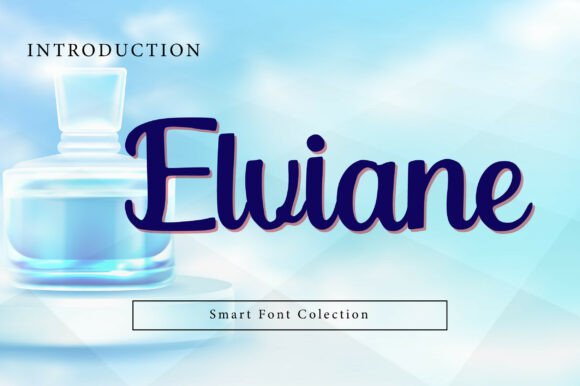
Introducing Elviane Font: The Modern Handwritten Script Font for Creative Projects
In the world of typography, a good font can make all the difference in the success of a design project. For designers and crafters looking for a modern, elegant, and friendly script font, Elviane Font is an excellent choice. Elvianet is a modern handwritten script font that boasts smooth curves and a natural brush-style flow, making it perfect for a wide range of creative projects.
What Makes Elviane Font Stand Out?
Elviane Font combines the best of both worlds: elegance and friendliness. Its smooth curves and natural flow give it a sophisticated, high-end feel, while its casual personality makes it approachable and relatable. This unique blend of characteristics makes Elviane Font an excellent choice for designers and crafters looking to add a touch of personality to their work.
Perfect for a Wide Range of Creative Projects
Elviane Font is a versatile font that can be used for a variety of creative projects, including:
- Social Media Graphics: Add a touch of elegance and sophistication to your social media graphics, making your content stand out in a crowded feed.
- Invitations and Posters: Create eye-catching invitations and posters that grab attention and leave a lasting impression.
- Packaging: Add a personal touch to your product packaging, making it more relatable and memorable.
- Creative Projects: Use Elviane Font to add a stylish, handcrafted touch to your creative projects, such as art, crafts, and DIY tutorials.
Excellent Readability and Versatility
One of the standout features of Elviane Font is its excellent readability. The font is designed to be clear and legible, making it perfect for both digital and print designs. Whether you’re creating a social media graphic or a print advertisement, Elviane Font ensures that your message is conveyed clearly and effectively.
A Stylish, Handcrafted Touch
Elviane Font is a handcrafted font that adds a touch of personality and style to any design project. Its smooth curves and natural flow give it a unique, handmade feel that sets it apart from more traditional fonts. With Elviane Font, you can add a stylish, handcrafted touch to your designs, making them more relatable and memorable.
Why Choose Elviane Font?
There are many reasons why designers and crafters should choose Elviane Font for their creative projects. Here are just a few:
- Elegance and Friendliness: Elviane Font combines elegance and friendliness, making it perfect for a wide range of creative projects.
- Versatility: Elviane Font can be used for logos, branding, social media graphics, invitations, posters, packaging, and more.
- Excellent Readability: Elviane Font is designed to be clear and legible, making it perfect for both digital and print designs.
- Handcrafted Touch: Elviane Font adds a stylish, handcrafted touch to any design project, making it more relatable and memorable.
In conclusion, Elviane Font is a modern handwritten script font that is perfect for designers and crafters looking to add a touch of elegance and friendliness to their creative projects. With its smooth curves, natural flow, and excellent readability, Elviane Font is a versatile font that can be used for a wide range of applications. Whether you’re creating a logo, social media graphic, invitation, poster, or packaging, Elviane Font is an excellent choice.